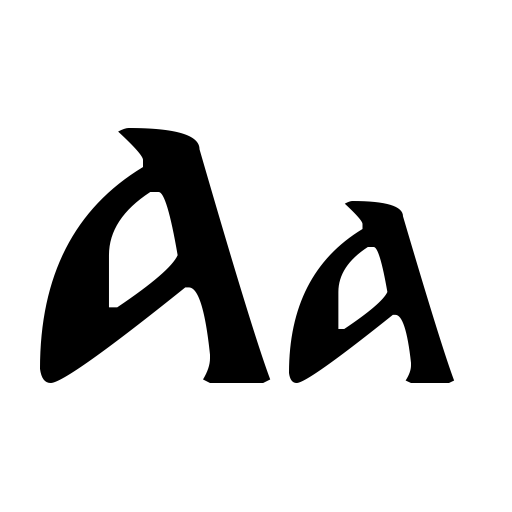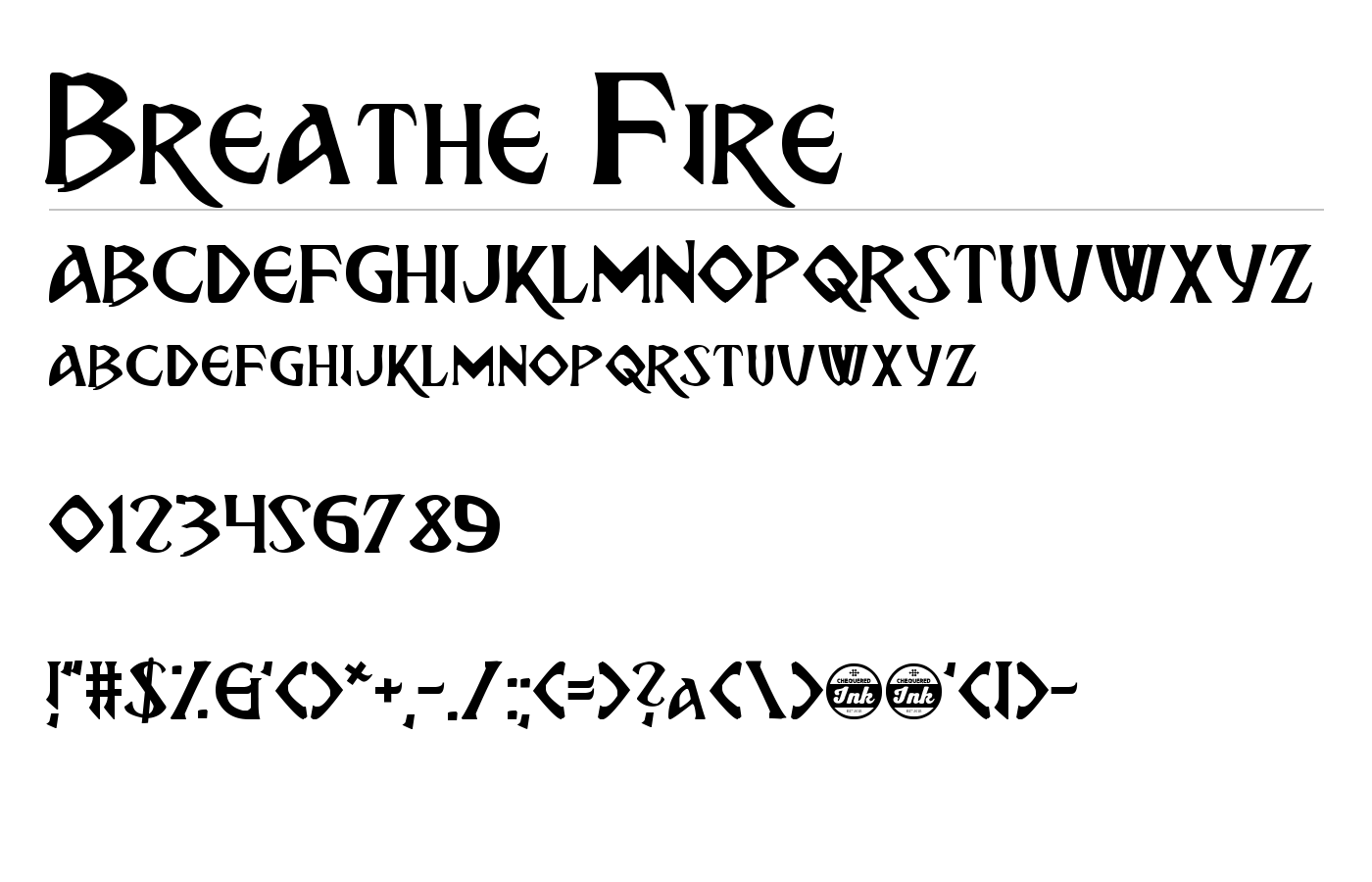
Breathe Fire is a bold, decorative serif font with a strong fantasy or medieval-inspired style, characterized by sharp, angular strokes and dramatic flared serifs. Its unique letterforms and high-contrast shapes give it an adventurous, mystical feel, making it ideal for use in logos, posters, or branding that seeks to evoke a sense of drama and excitement. This font works best in display contexts where its distinctive personality can really stand out.
Breathe Fire Font
About Breathe Fire Font